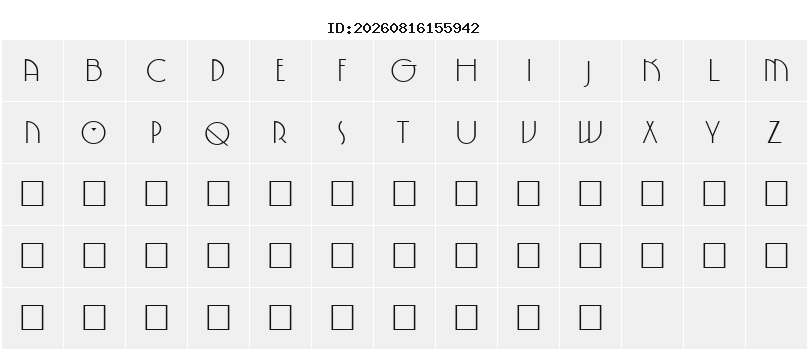
SpringGarden Preview
• Font Name: SpringGarden
• Font ID: Altsys Metamorphosis:SpringGarden Regular
• Full Font Name: SpringGarden Regular
• Version: Altsys Metamorphosis:5/9/92
• PostScript Name: SpringGarden Regular
• Character Count: 29
About SpringGarden.ttf
SpringGarden.ttf is a modern, elegant sans-serif font designed for ultimate readability and visual harmony. Perfect for branding, headlines, web design, and print materials.